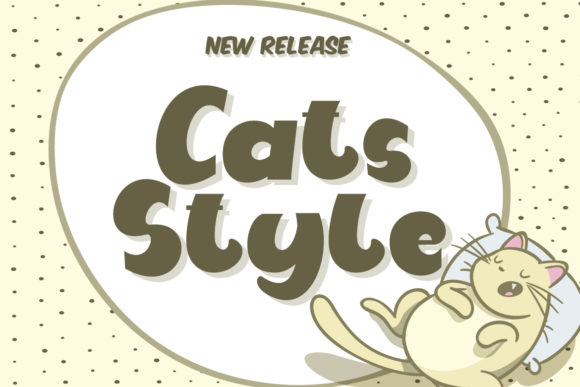
Looking for the perfect way to add a touch of whimsy and charm to your next project? Look no further than Cats Style Font, the must-have display font for any creative endeavor!
With its endearingly chunky letters and playful curves, Cats Style Font is guaranteed to bring a smile to your face and captivate your audience. From captivating social media posts to heartwarming DIY creations, this font will transform your words into a visual feast.
Cats Style Font is not just another font; it's a gateway to unleashing your creativity. Its versatility knows no bounds, making it the go-to choice for a multitude of projects. Whether you're crafting heartfelt invitations, designing eye-catching posters, or personalizing your digital space, Cats Style Font will elevate your creations to new heights.